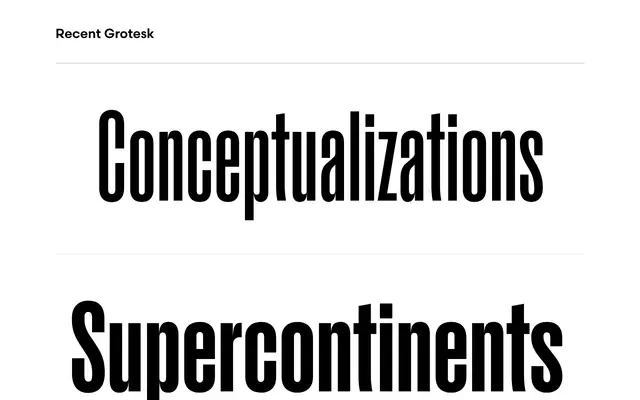
Recent Grotesk
Process Type Foundry · Eric Olson · 2020
A six-font display grotesque by Eric Olson spanning compressed to ultra-wide cuts, drawing on wood type improvisation, phototype x-heights and Excoffon's Antique Olive Nord.
Eric Olson's Recent Grotesk takes a just-the-basics approach across six widths, running from Compressed through to an overstuffed Ultra Wide cut. The design draws on the ad-hoc weight and width strategies of 19th-century wood type, the high x-heights of phototype-era grotesques and the inflated forms of Roger Excoffon's Antique Olive Nord. Best suited to large-scale display work where its width extremes and full-bodied forms can operate as intended.
A display grotesque drawing on 19th-century wood type traditions and 20th-century phototype, with particular influence from Roger Excoffon's Antique Olive Nord, placing it firmly in the grotesque camp with display intent.